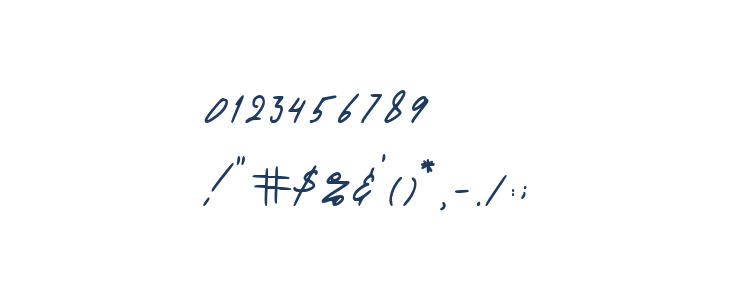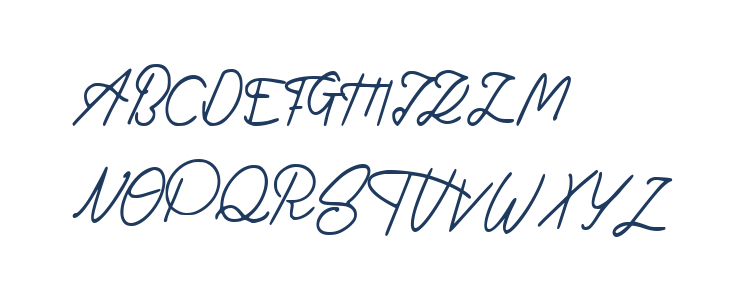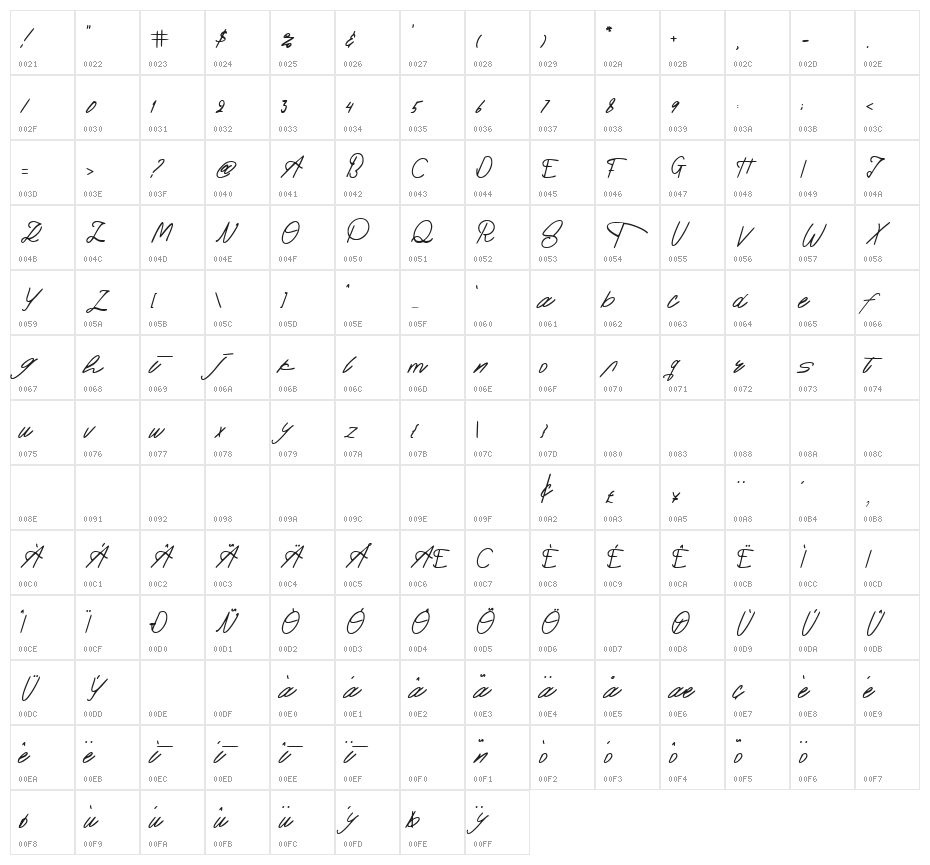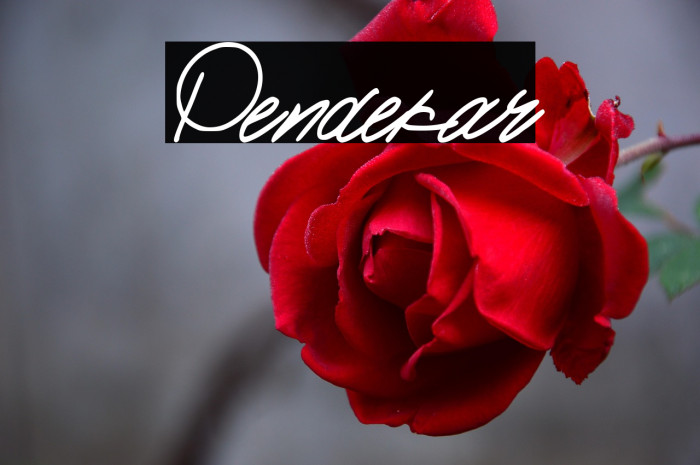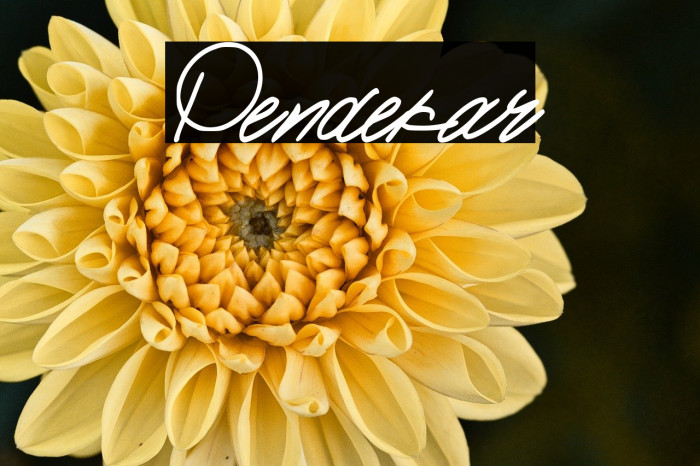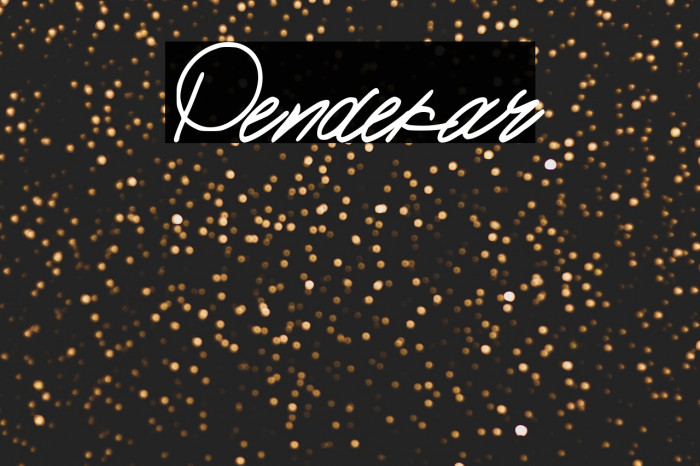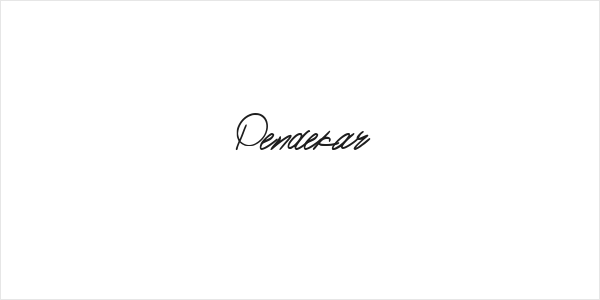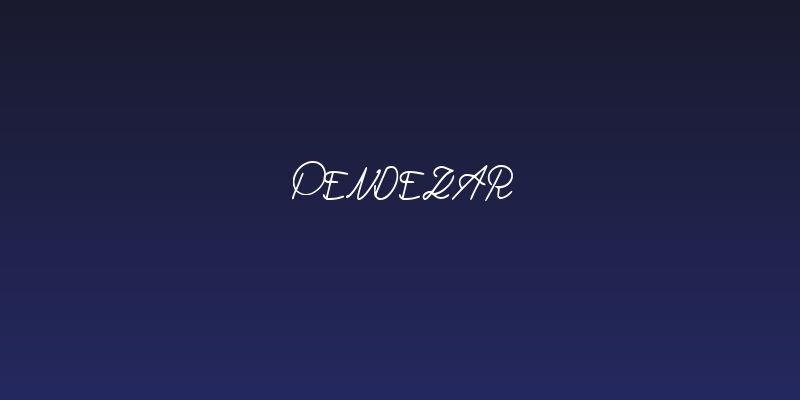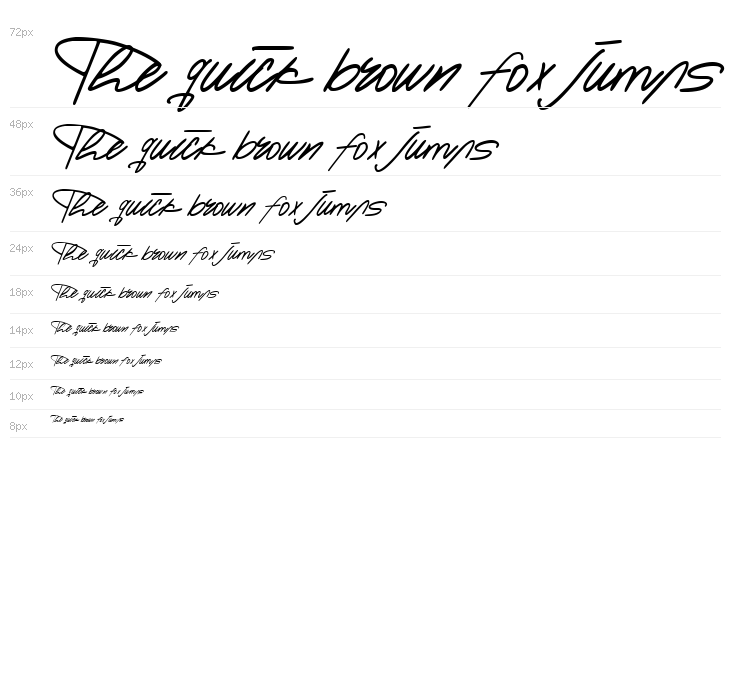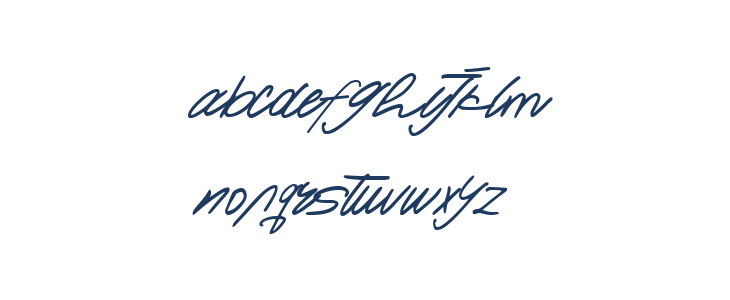
Pendekar Font
Pendekar Description
A dynamic, cursive handwritten script with fluid, connected strokes and a casual, energetic appearance. The characters are slightly slanted, with varying stroke thickness and expressive loops, mimicking natural handwriting.
| Overall Style | Decorative, Casual, Artistic |
| Use Case | Logos, Headlines, Invitations, Artistic projects |
| Proposed Projects | Greeting cards, personal branding, invitations, quotes, artistic posters. |